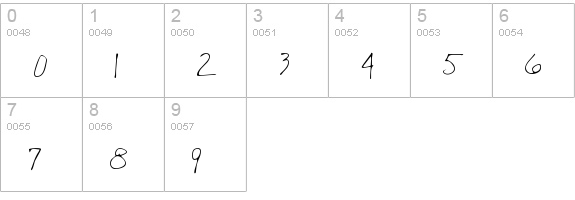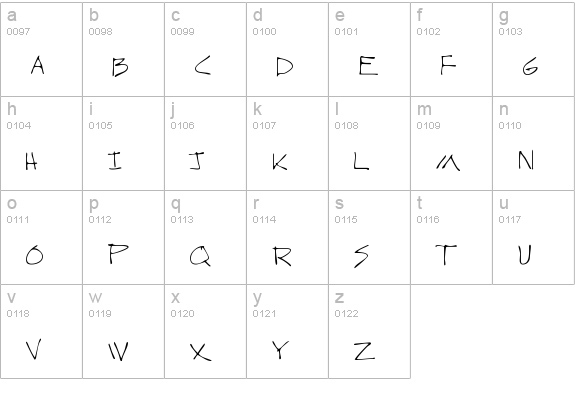
WebstersHand Regular Font Details
WebstersHand Regular is the standard, neutral variant in the WebstersHand typeface family \xE2\x80\x94 well suited to general body text, paragraphs, and standard typographic work.
WebstersHand Regular font is a unique and versatile typeface that brings a touch of personalization and warmth to any design project. With its handwritten appearance, this font adds a human touch and a sense of authenticity to your text. The flowing and slightly irregular letterforms of WebstersHand Regular create a natural and organic feel, making it perfect for personal blogs, invitations, posters, and other creative endeavors. Whether you're looking to add a personal touch to your wedding invitations or create a warm and welcoming atmosphere for your restaurant menu, this font is sure to deliver. What makes WebstersHand Regular even more appealing is that it is freely available to download at FontsMarket.com. Yes, you heard it right! This font can be yours at no cost, allowing you to enhance your designs without breaking the bank. With just a few clicks, you can access this amazing font and start incorporating it into your projects. With its wide range of characters and ligatures, WebstersHand Regular offers endless possibilities for creative typography. Its smooth curves and elegant strokes make it easy to read and pleasant to the eye, ensuring that your message is conveyed clearly and effectively. Don't miss out on this fantastic opportunity to elevate your designs with the charm and character of WebstersHand Regular font. Download it for free today at FontsMarket.com and add a personal touch to your next project.